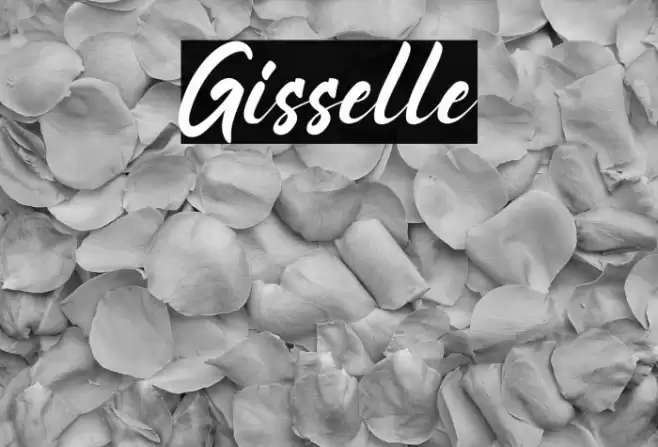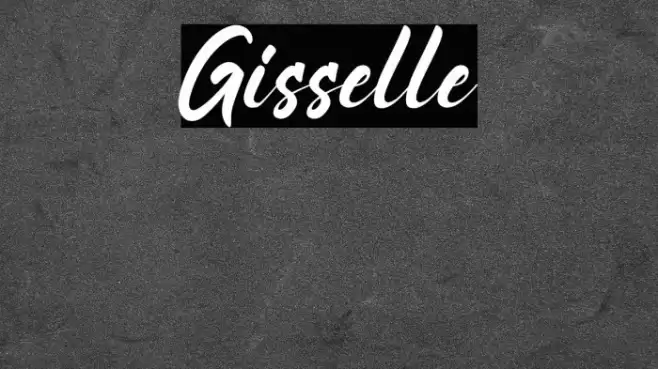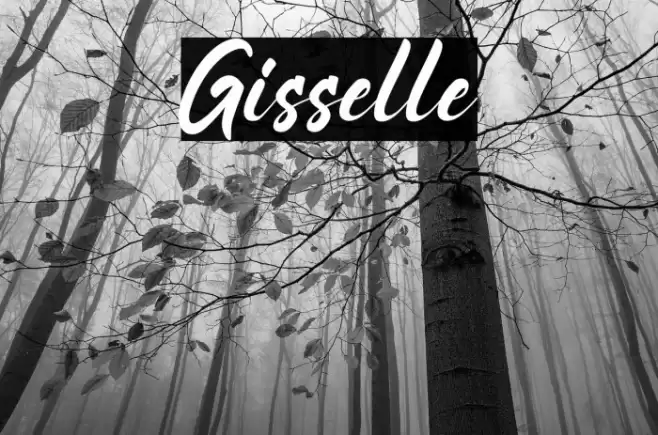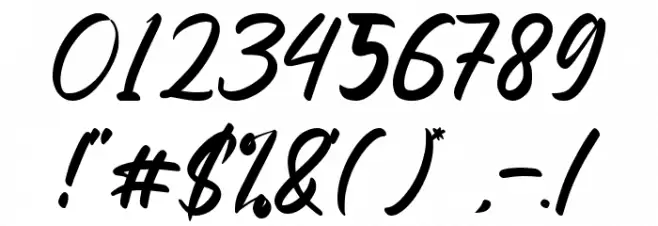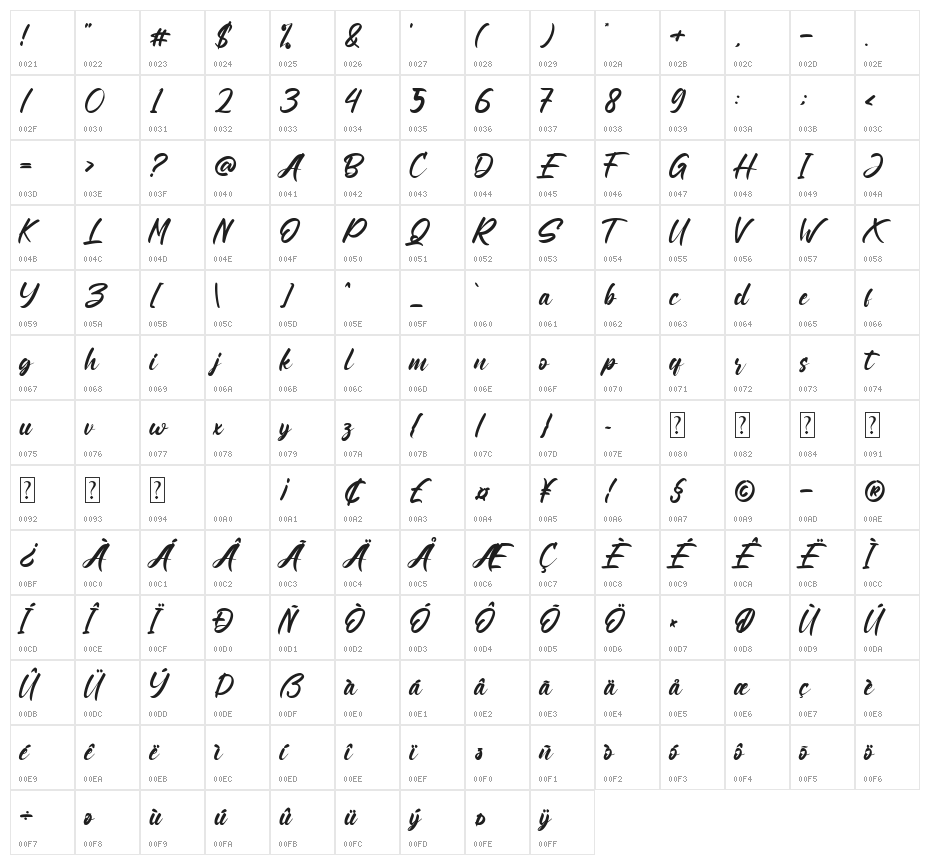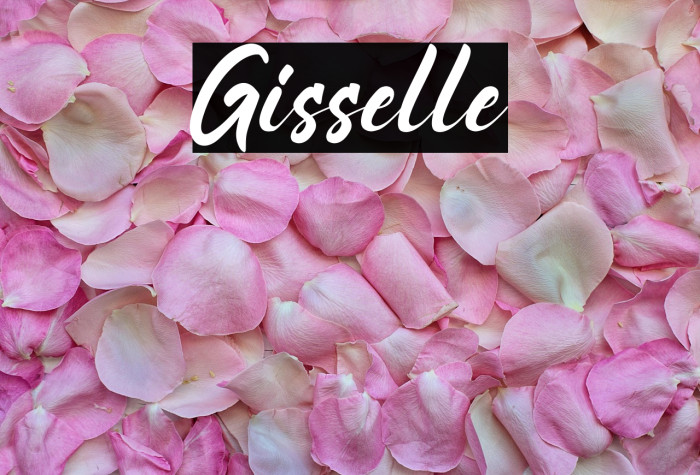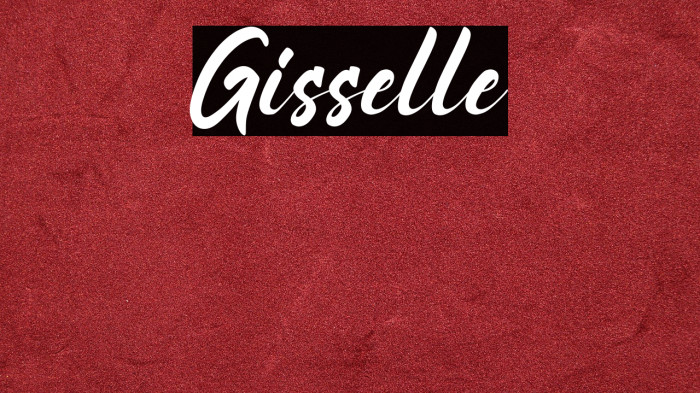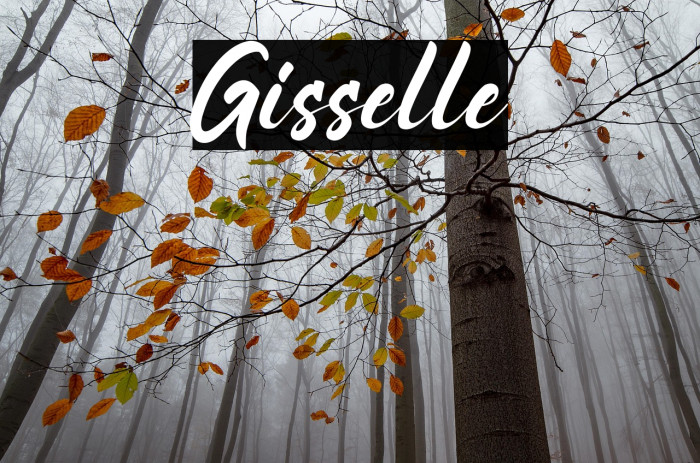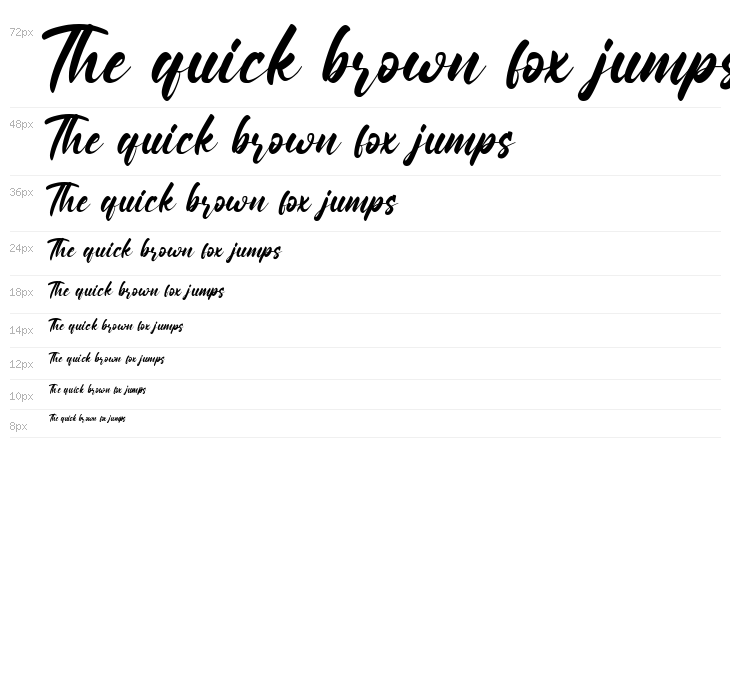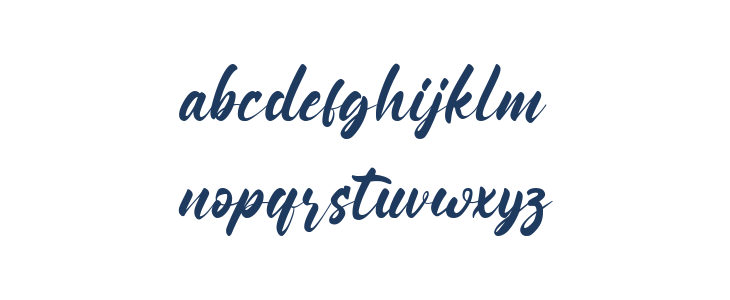
Gisselle Font
Gisselle Description
This font exudes a dynamic and energetic feel with its bold, flowing script style. The characters are connected in a fluid manner, reminiscent of traditional calligraphy but with a modern twist. The uppercase letters are slightly more angular, adding a touch of edginess, while the lowercase letters maintain a smooth, rounded appearance. The numbers and special characters are consistent with the overall style, ensuring a cohesive look. The font's boldness and fluidity make it stand out, perfect for capturing attention.
A bold, flowing script font with a modern calligraphic style from Regular fonts.